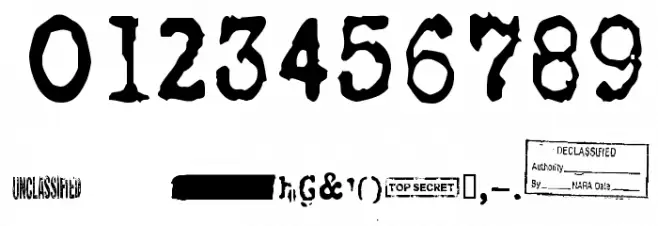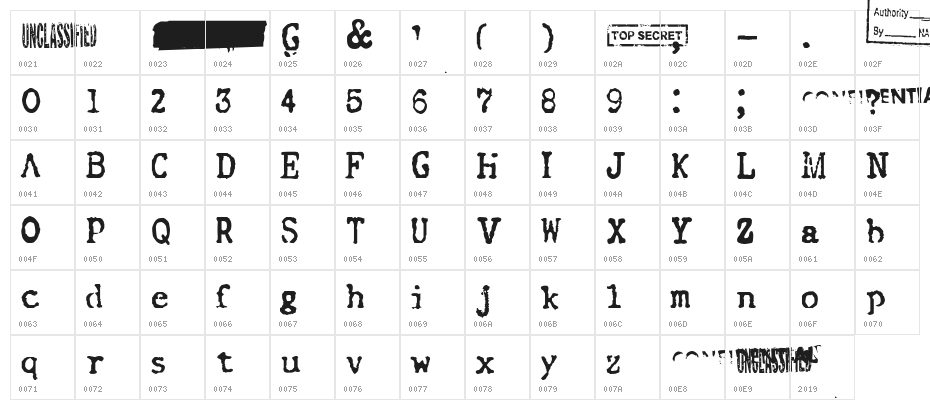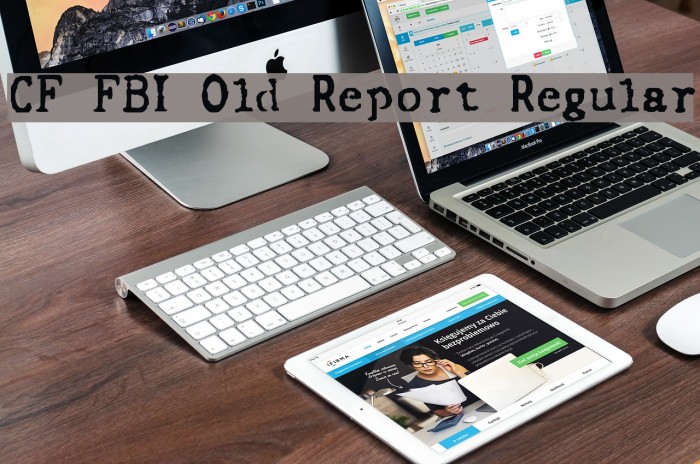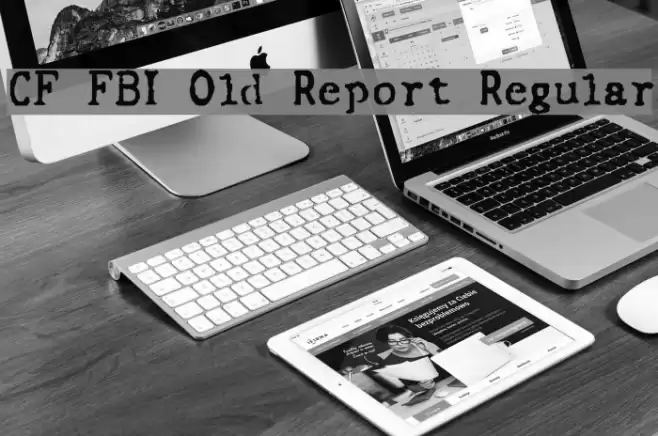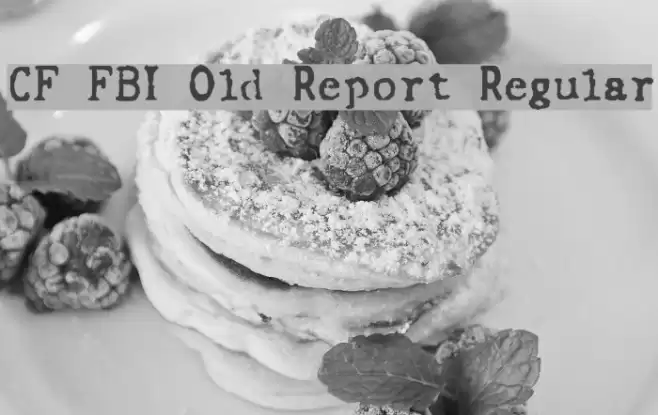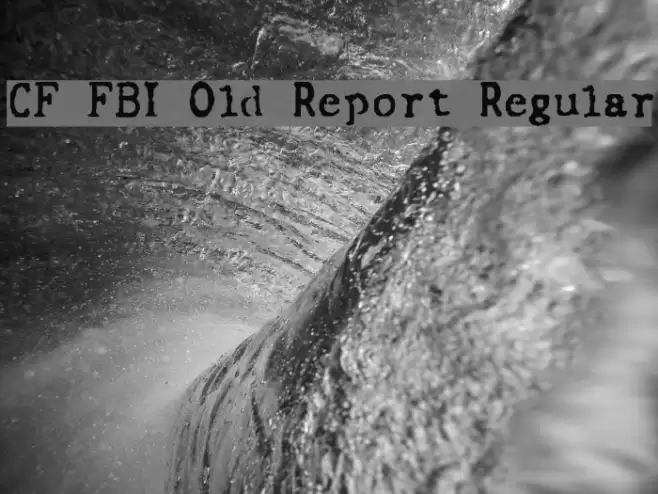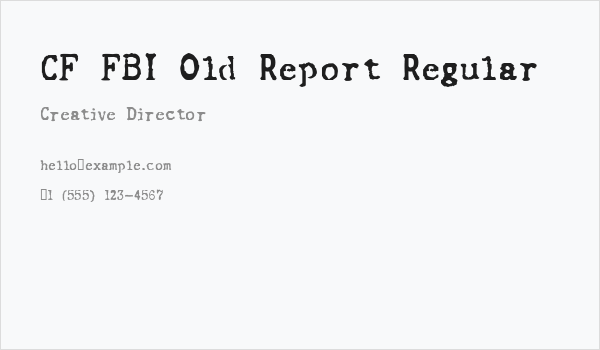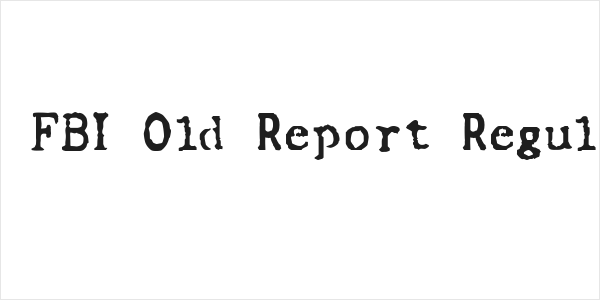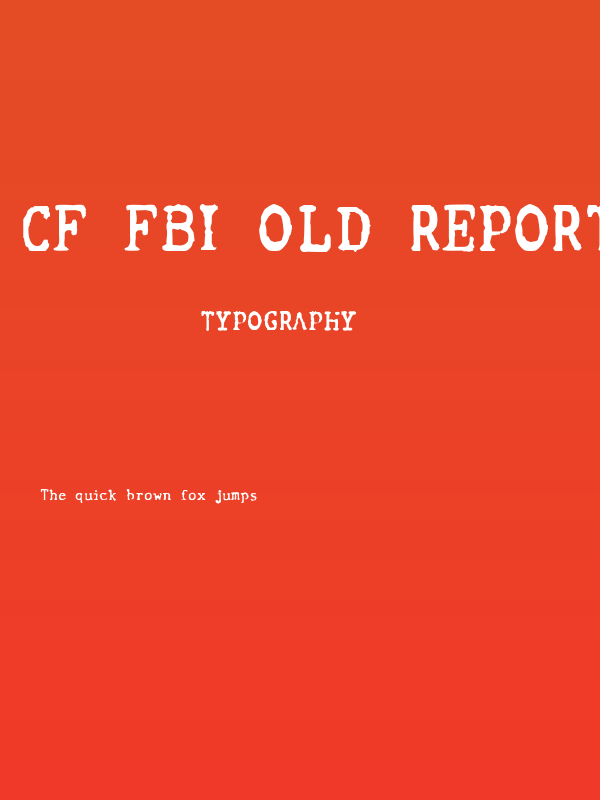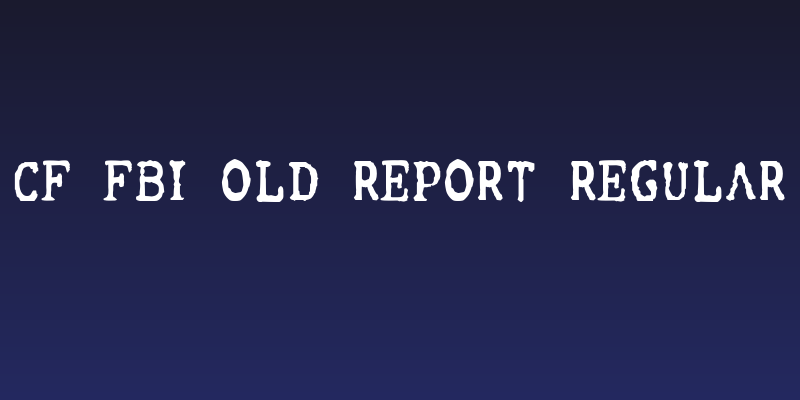
CF FBI Old Report Regular Font
CF FBI Old Report Regular Description
This font features a distressed, vintage typewriter style that evokes a sense of old documents and historical records. The characters are bold and have a rough, textured appearance, giving them a unique, aged look. The uppercase and lowercase letters maintain a consistent style, with slightly irregular edges that add to the font's charm. The numerals and special characters follow the same design, ensuring a cohesive appearance across all text. This font is ideal for projects that require a retro or historical aesthetic, such as posters, book covers, or themed event invitations.
| Use Case | Headlines, Logos, Decorative text |
| Proposed Projects | Ideal for retro-themed designs, historical documents, posters, and book covers. |